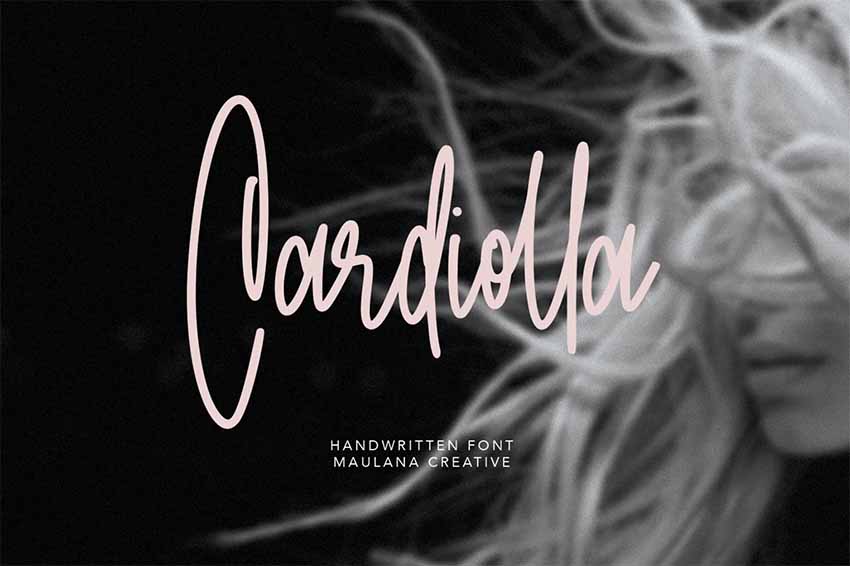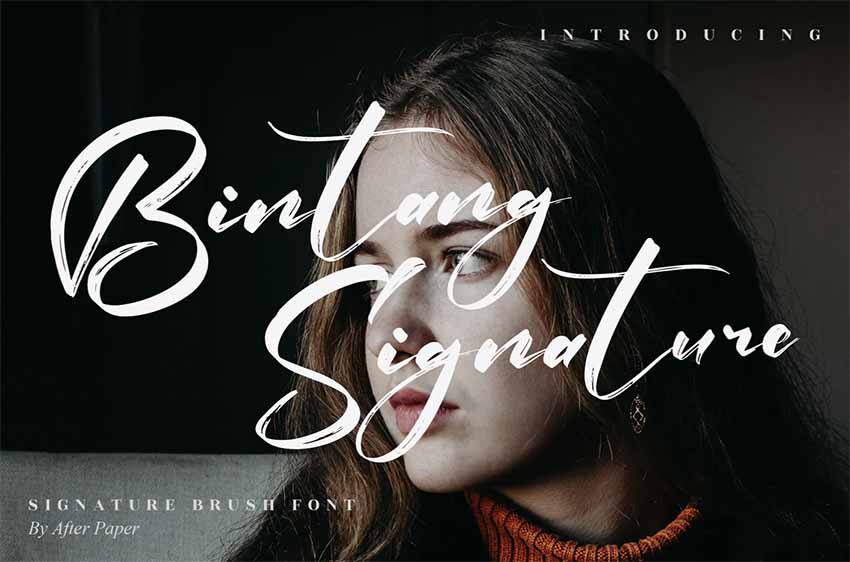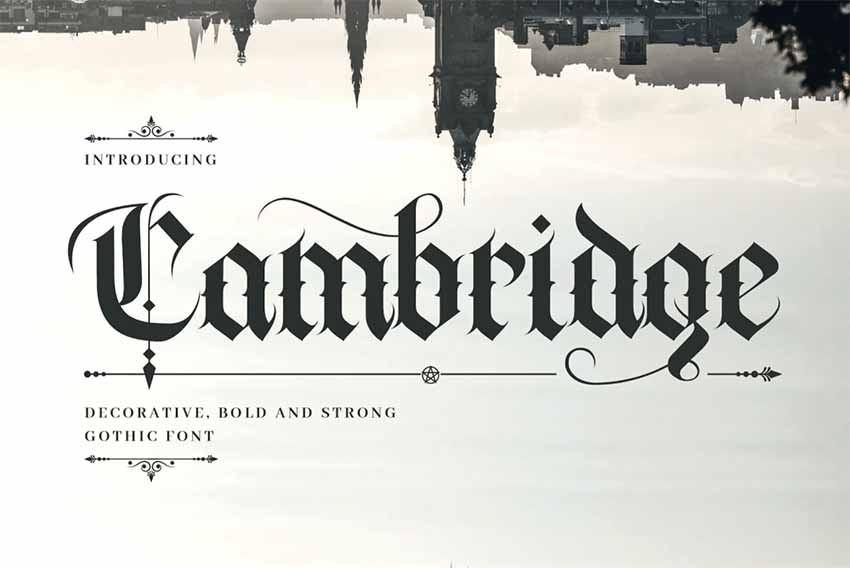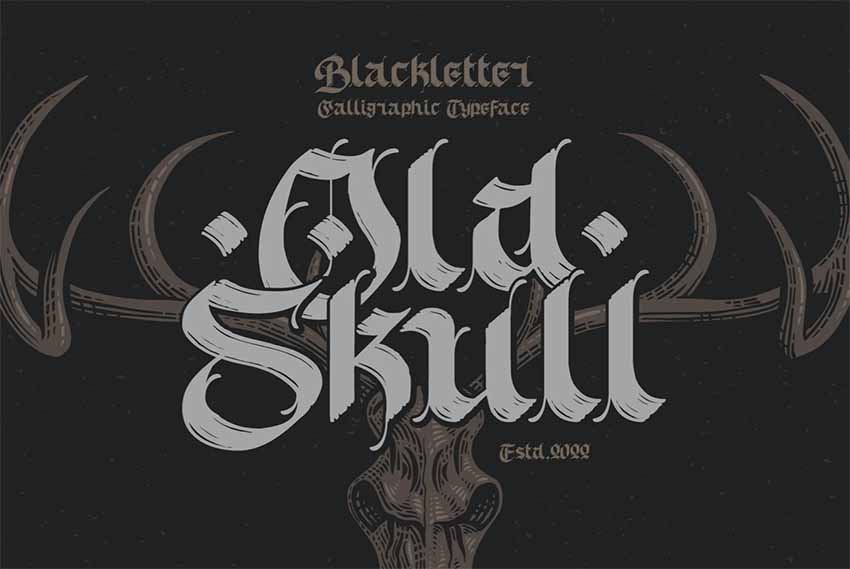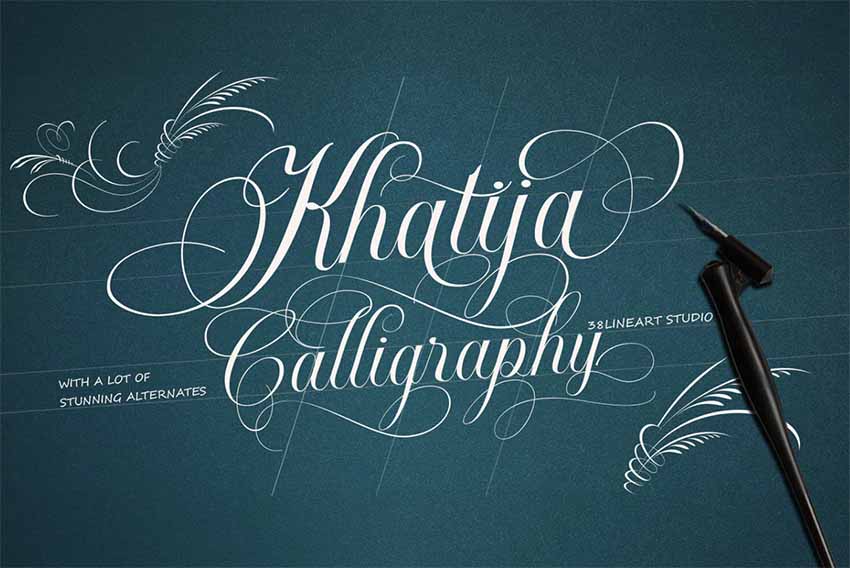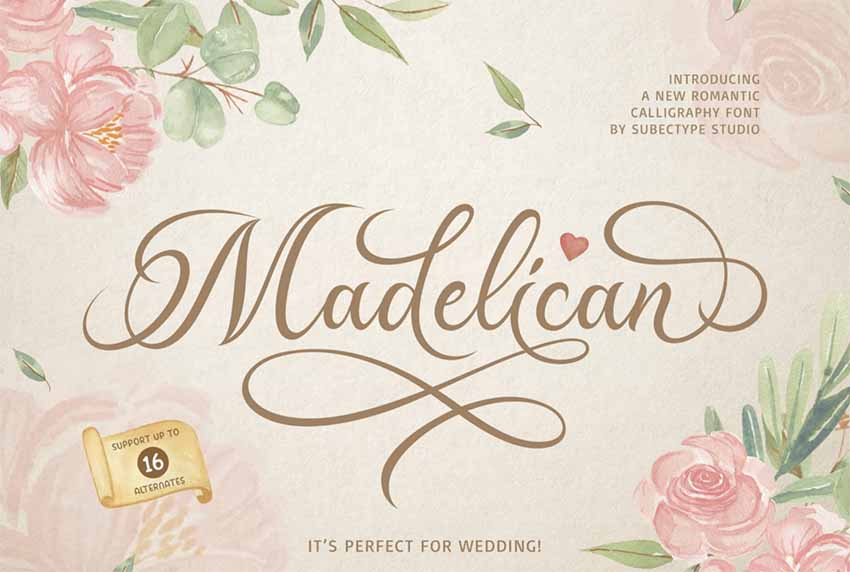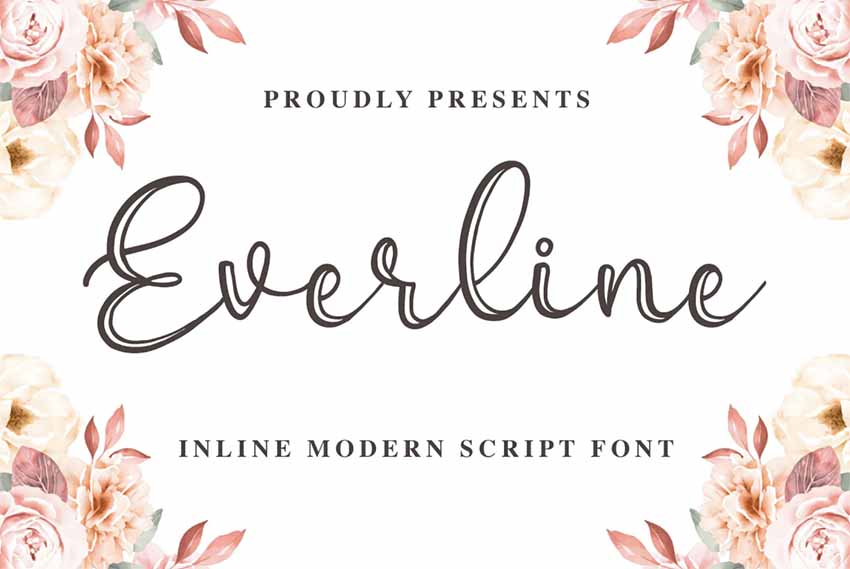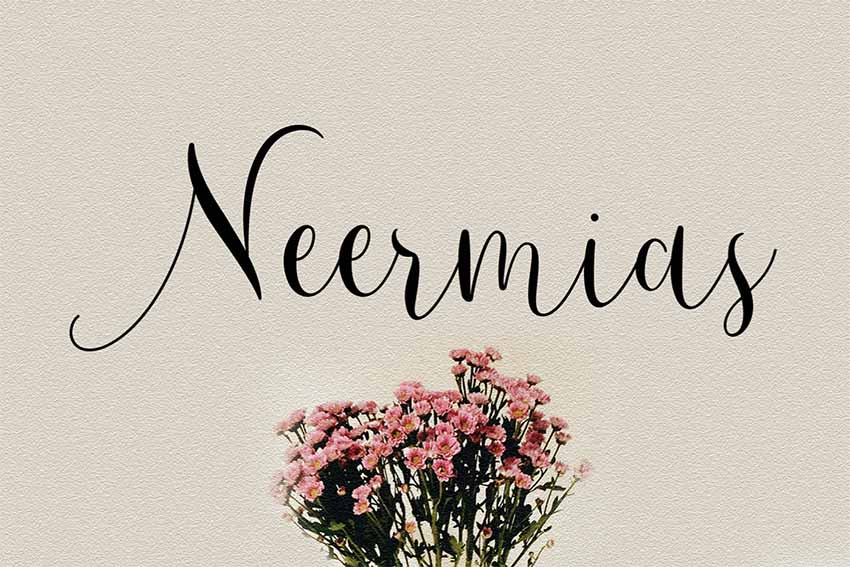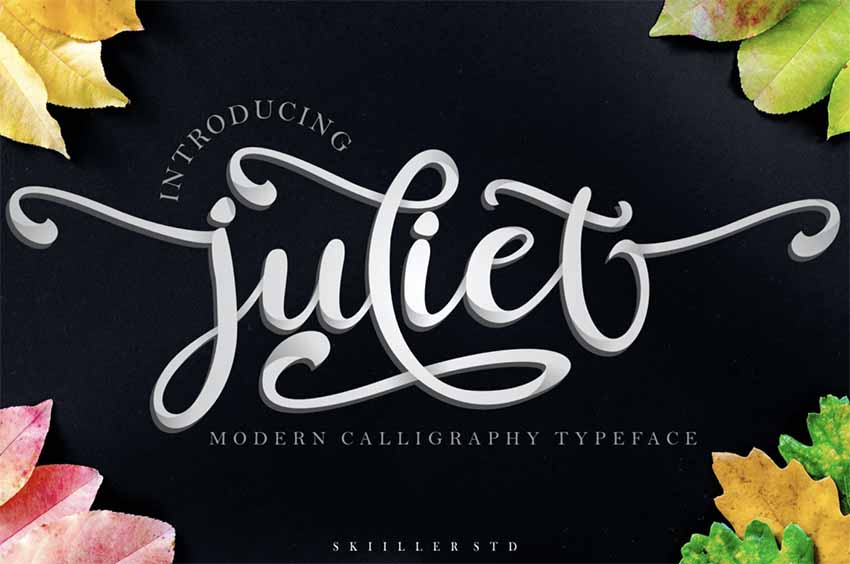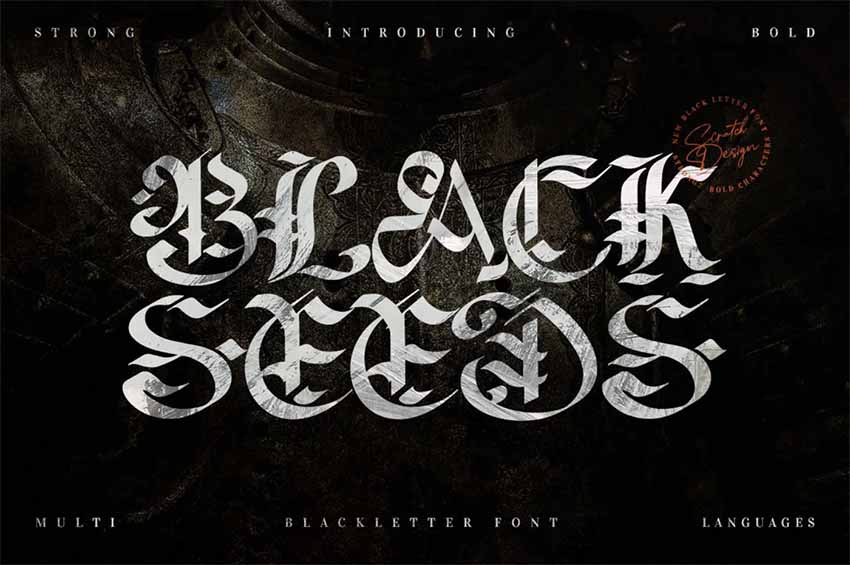
40 Best Calligraphy Fonts
Add a stylish calligraphy font to your designs. Explore this amazing selection of unique calligraphic fonts from Envato Elements.
Add a stylish calligraphy font to your designs. Find some of the best calligraphy fonts online at Envato Elements.
40 Best Calligraphy Fonts
Einstein Calligraphy Font Style
Looking for handwritten calligraphy fonts? Show off the sophistication of your work with the genius Einstein font. Inspired by classic handwriting styles, this calligraphic typeface features sleek letters and a bouncy baseline. Enjoy international language support and a bonus pack of ornaments.
Amatira Typeface Calligraphy Font Download
Sometimes, all your design needs are great cursive calligraphy fonts. And the Amatira font will transform any creative design. Carefully crafted with handmade details, this is one of the best calligraphy fonts that will instantly beautify your product or stationery.
Motisan Script Calligraphy Font Download
Create a delightful experience with popular calligraphy fonts like the Motisan script. This brilliant font features a cheerful script design with pretty swashes and dynamic letters. Customize it easily for your personal brand and make your work stand out by downloading this modern calligraphy font today!
Flower Child Modern Calligraphy Font
The best calligraphy fonts can communicate emotion, and you'll get just that with the whimsical Flower Child Calligraphic Letters. A flirty font with a sweet, carefree vibe, this font will help make any typography poster stand out. Use it on videos, apps, or even a personal website!
Sabreena Calligraphy Font Style
Some popular calligraphy fonts have a great mix of masculine and feminine elements, and the Sabreena Calligraphy Fonts Tattoo is the perfect combination of both. The fancy calligraphy font features bold, thick letters with a pretty brush script that is suitable for many purposes, including tattoos. Download it to get access to letters, numbers, and more.
Milestone Bold Calligraphy Fonts
Achieve your next few milestones with easy calligraphy fonts. Inspired by the powerful energy of the great outdoors, this font features handmade brush strokes for that authentic outdoor vibe. Use this modern calligraphy font to complement your official brand or any related merchandise.
Wowangle - Brush Font
Add a bit of a wow factor to your work with fancy calligraphy fonts. This cool calligraphy font style features a modern calligraphic design with bold curvy lines and exaggerated swashes. It's quirky and whimsical, and you can create an over-the-top design with this fabulous typeface.
Ammhenthi Font
Get inspired by popular calligraphy fonts like this. A great addition to any pretty design, this cool calligraphy font features a unique, dainty style. Its beautiful script letters look like artful remixes of calligraphy tattoo fonts. Pair it with flowers for a lovely result. Elevate your work by downloading this font today!
Sweet Mia Font
This modern calligraphy font is one we know you'll definitely love! Sweet Mia features a gorgeous script design with curvy letters and cheerful details. Its smooth lines are great for any dainty design or children's book.
10. Adediala Script Font (OTF, TTF)
Adediala Script Font
Need more good calligraphy fonts? Then check out the splendid Adediala font. Adediala has a beautiful script similar to some calligraphy tattoo fonts. It's super easy to customize with additional OpenType features. Simply select a character from the Glyph palette to enjoy more alternatives. You'll definitely need this multipurpose font!
11. Sweethart Font (OTF, TTF, WOFF)
Sweethart Font
Perfect your wedding invitations with handwritten calligraphy fonts like this sweet font. This cursive calligraphy font includes a flirty, fluid script that you can use on just about any pretty project. Combine it with inks, foils, and watercolors for fantastic results!
12. Nightamore Font (OTF, TTF)
Nightamore Font
Looking for easy calligraphy fonts? Beautify your horror-themed posters with the Nightamore font. This cool calligraphy font features a cool, vampire vibe with dreamy letters for an elegant script. Use it for your official book logo or any ghoulish design and enjoy this font today!
Badegan Calligraphy
Sign off in style with this hand-crafted signature font. Badegan Calligraphy is ideal for stationery, logos, pull quotes, book covers, and more. This terrific signature font includes over 370 glyphs, so plenty of options for creating your own one-of-a-kind look.
Choose Your Favourite Calligraphy Font